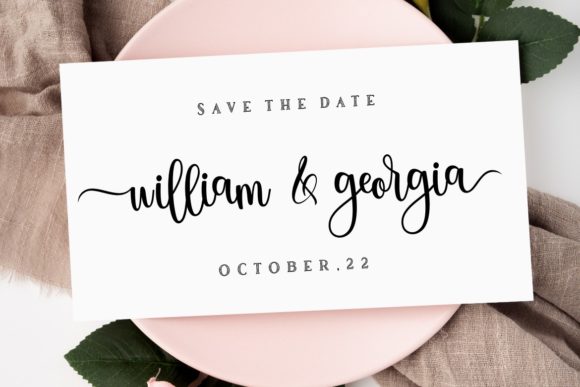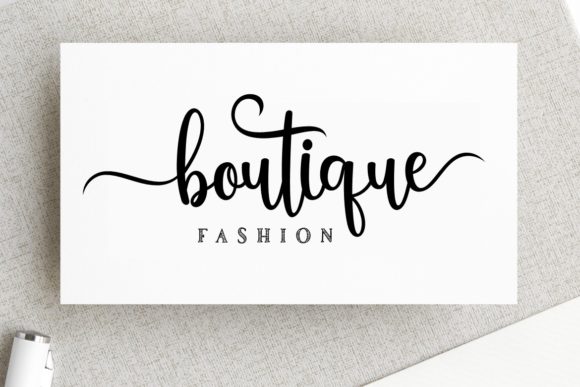
Santiago Elmoro Font
db-ku.com - Script & Handwritten -- Santiago Elmoro is a beautiful and refined duo font (serif and script). It has a classy, elegant and modern look that can be used for logos, branding, invitations, stationery, wedding designs, social media posts, and much more!